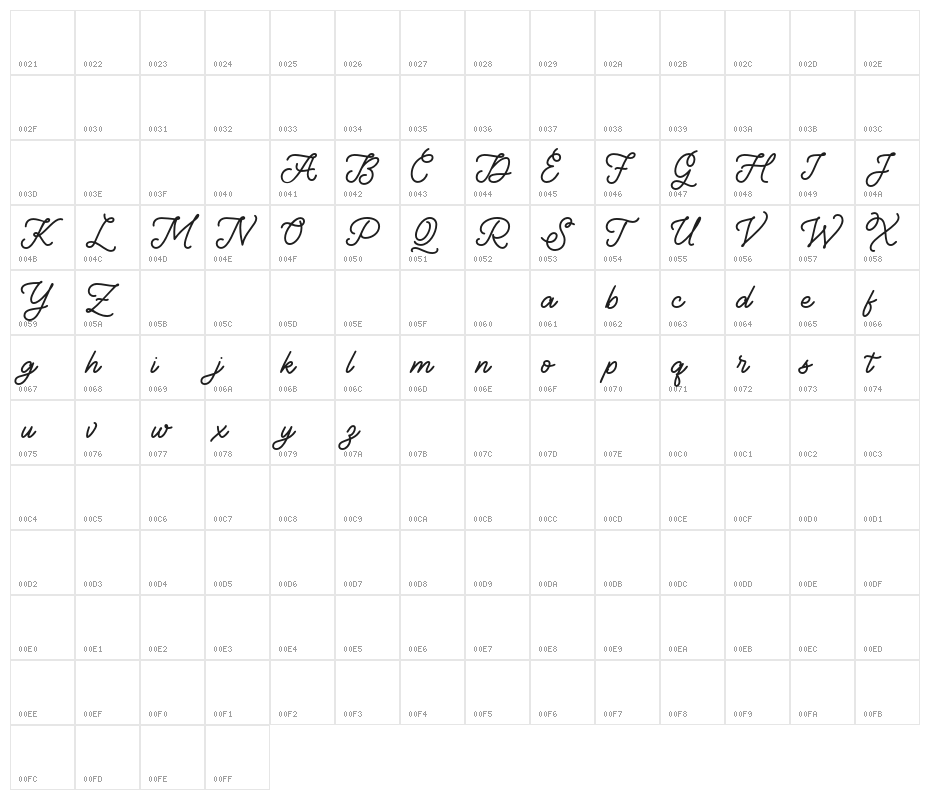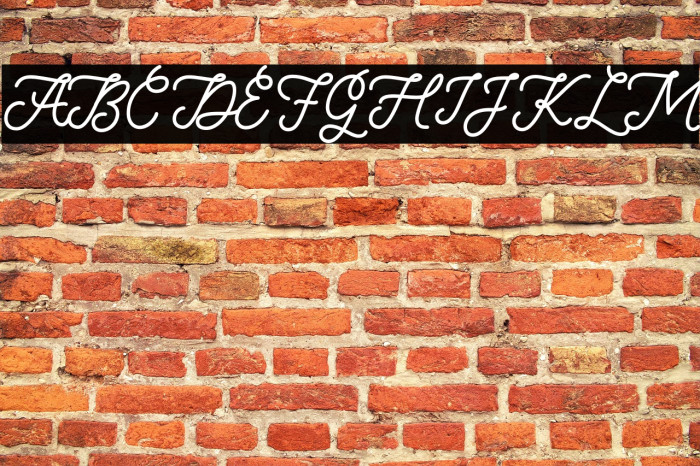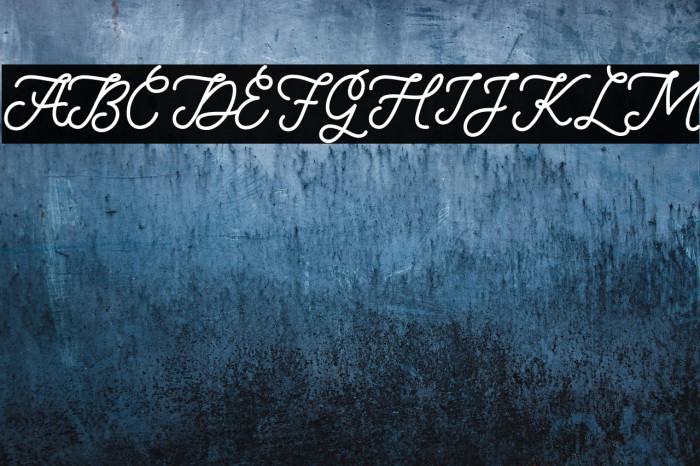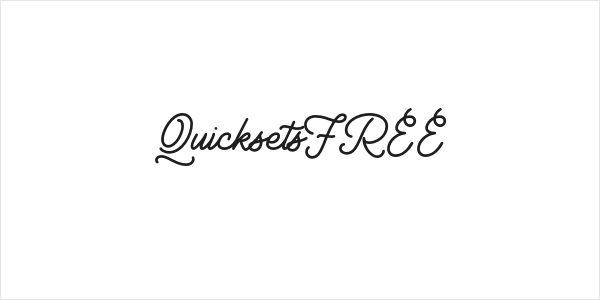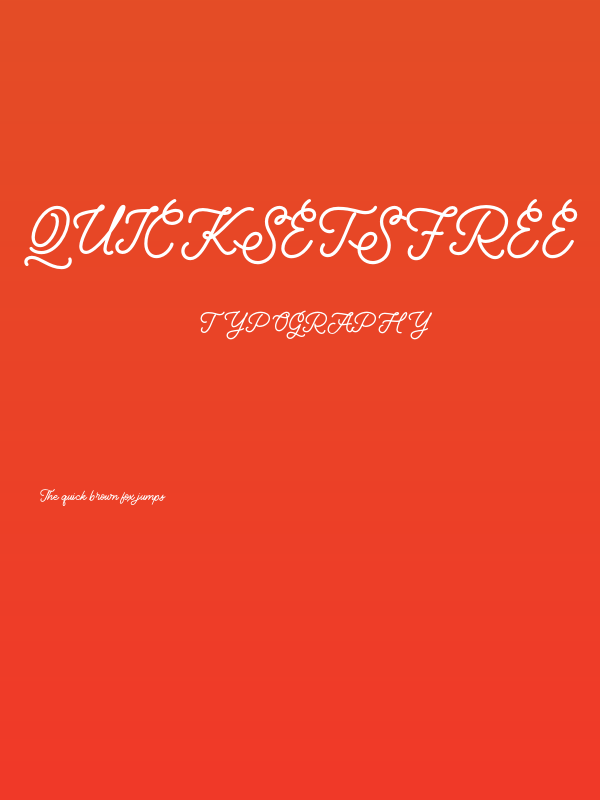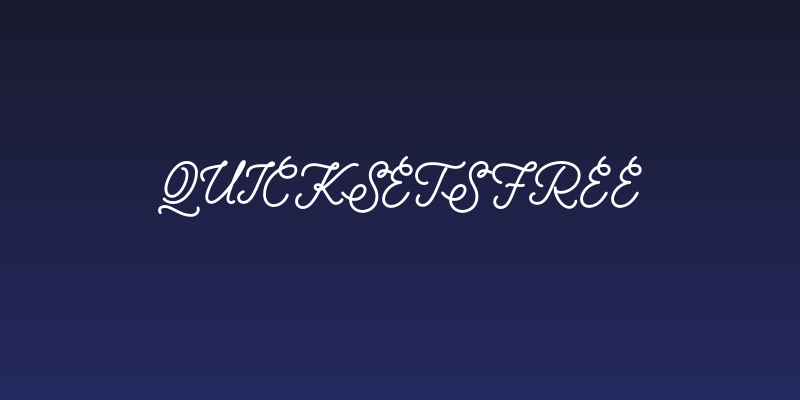
QuicksetsFREE Font
✎ Calligraphic
This font features an elegant and flowing script style, characterized by its smooth, cursive letterforms. The uppercase letters exhibit a graceful, interconnected design, while the lowercase letters maintain a consistent fluidity, enhancing readability. The font's strokes are moderately thick, providing a balanced contrast that adds to its legibility and aesthetic appeal. The overall design is reminiscent of traditional calligraphy, yet it maintains a modern touch, making it versatile for various applications. The characters are well-spaced, ensuring clarity and ease of reading, even in smaller sizes.
| Use Case | Logos, Invitations, Branding |
| Proposed Projects | Ideal for wedding invitations, elegant branding, greeting cards, and sophisticated logo designs. |